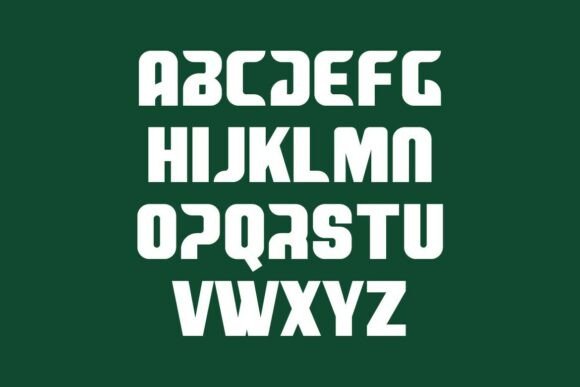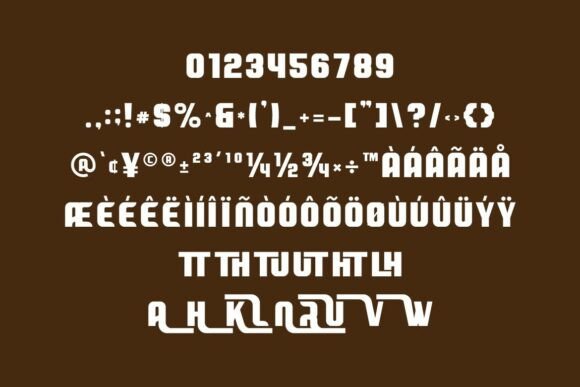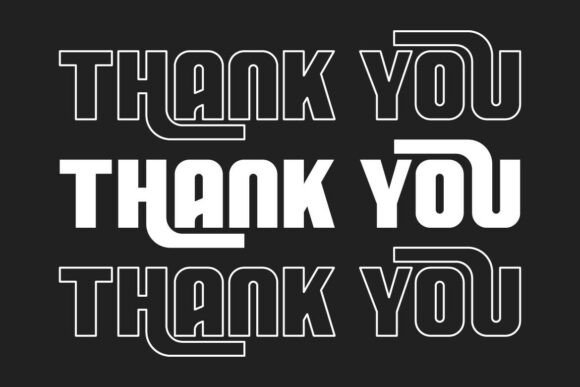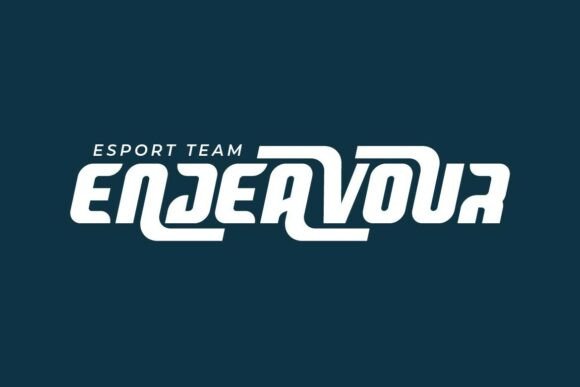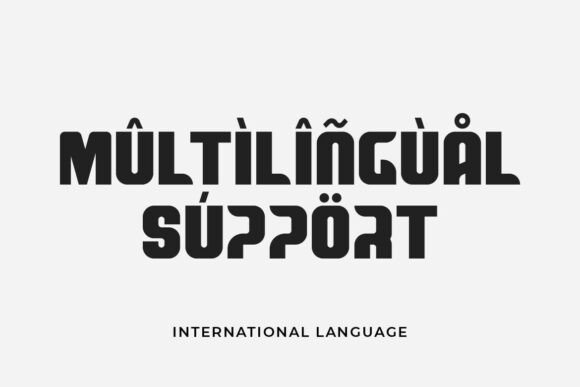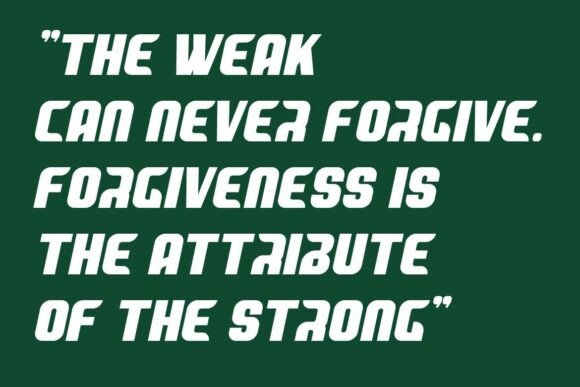
Introducing Abruc Font: A Modern Display Typeface for Bold Visual Identities
In the world of typography, a distinctive font can make all the difference in creating a lasting impression. Abruc Font is a modern display typeface that embodies a futuristic and highly memorable visual identity, making it perfect for designers and crafters looking to elevate their branding. With its bold, modular shapes and sharp, rounded corners, Abruc is sure to turn heads.
A Unique Geometric Display Font
Abruc Font features letters that appear to be constructed from interlocking pipe-like segments, giving it a strong sense of architectural and industrial design. This unique geometric display font is perfectly suited for crafting eye-catching logos, modern technological branding, music album covers, and event posters that require a contemporary, stylized look.
Sophisticated Structure and Creative Flexibility
The sophisticated structure of the Abruc typeface is further enhanced by the inclusion of alternates and ligatures, offering designers maximum creative flexibility and ensuring every title is unique. With multilingual support, this bold font is ready to elevate your branding with its unique, interlocking charm and modern aesthetic.
PUA-Encoded for Effortless Access
The Abruc display font is also PUA-encoded, ensuring effortless access to all glyphs, swashes, and alternate characters to help you customize your design. This feature allows designers to easily navigate and experiment with different combinations, making it easier to find the perfect fit for their project.
Perfect for Modern Designs
Abruc Font is ideal for a wide range of applications, including:
- Logos and branding: Create a lasting impression with a unique and memorable visual identity.
- Music album covers: Add a touch of modernity and sophistication to your music design.
- Event posters: Make your event stand out with a bold and eye-catching title.
- Technological branding: Perfect for companies looking to convey a sense of innovation and modernity.
Key Features of Abruc Font
- Bold, modular shapes and sharp, rounded corners for a futuristic look.
- Unique geometric display font with interlocking pipe-like segments.
- Includes alternates and ligatures for maximum creative flexibility.
- Multilingual support for global designs.
- PUA-encoded for effortless access to glyphs, swashes, and alternate characters.